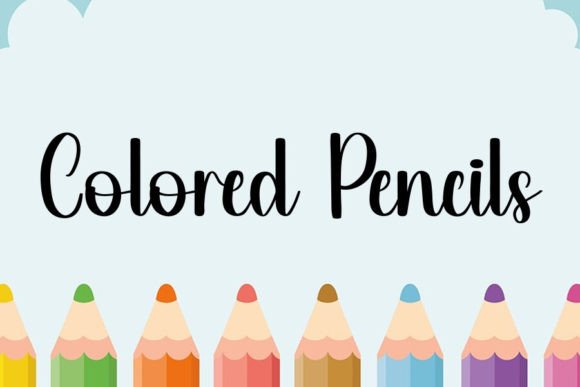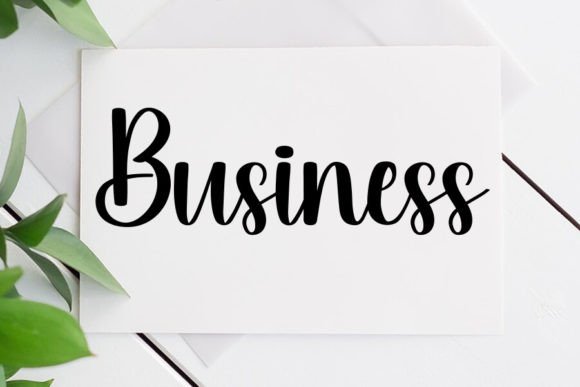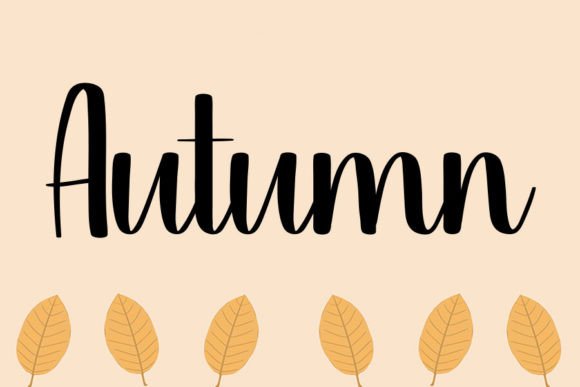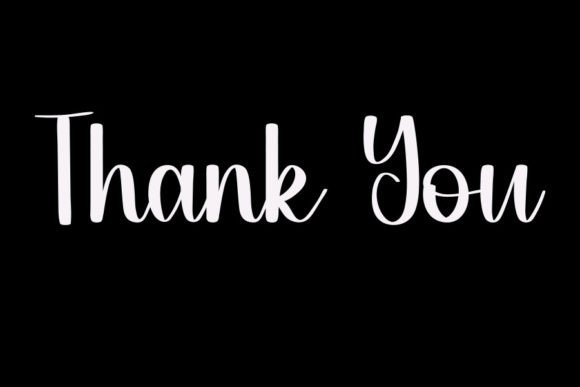
Introducing Barbie Font: The Sweet and Elegant Handwritten Font
Are you looking for a font that can add a touch of elegance and whimsy to your designs? Look no further than Barbie Font, a beautiful and versatile handwritten font that’s perfect for a wide range of creative projects. In this article, we’ll take a closer look at the features and benefits of Barbie Font, and explore how you can use it to elevate your designs.
What is Barbie Font?
Barbie Font is a sweet and cursive handwritten font that’s designed to bring a touch of joy and romance to your designs. With its gentle and flowing curves, this font is perfect for creating beautiful and eye-catching text that will capture the attention of your audience. Whether you’re working on a branding project, designing a logo, or creating a wedding invitation, Barbie Font is the perfect choice.
Key Features of Barbie Font
- Sweet and Cursive Handwritten Style: Barbie Font features a beautiful, handwritten style that’s both elegant and playful.
- Versatile and Flexible: This font is perfect for a wide range of design projects, from branding and logos to wedding invitations and greeting cards.
- Easy to Read: Despite its elegant and cursive style, Barbie Font is easy to read and understand, making it perfect for body text and headlines.
- Fancy and Elegant yet Casual: Barbie Font strikes the perfect balance between elegance and casualness, making it perfect for designs that need to be both sophisticated and approachable.
Use Cases for Barbie Font
So, what can you use Barbie Font for? The possibilities are endless! Here are some ideas to get you started:
- Branding and Logo Design: Use Barbie Font to create a beautiful and memorable logo that reflects your brand’s personality and style.
- Wedding Invitations and Stationery: Add a touch of elegance and romance to your wedding invitations, greeting cards, and other stationery with Barbie Font.
- Fashion and Lookbook Design: Use Barbie Font to create stunning fashion lookbooks, catalogs, and advertisements that showcase your products in style.
- Marketing and Promotion: Create eye-catching marketing materials, such as flyers, brochures, and social media graphics, with Barbie Font.
Why Choose Barbie Font?
So, why should you choose Barbie Font for your next design project? Here are just a few reasons:
- Unique and Eye-Catching: Barbie Font is a unique and eye-catching font that will help your designs stand out from the crowd.
- Elegant and Sophisticated: This font adds a touch of elegance and sophistication to any design, making it perfect for high-end brands and luxury products.
- High-Quality Design: This font is designed to high standards, with careful attention to detail and a focus on readability and legibility.
In conclusion, Barbie Font is a beautiful and versatile handwritten font that’s perfect for a wide range of design projects. With its sweet and cursive style, elegant and sophisticated feel, and ease of use, this font is a must-have for any designer or crafters looking to add a touch of whimsy and elegance to their designs. So why wait? Download Barbie Font today and start creating stunning designs that will capture the attention of your audience!